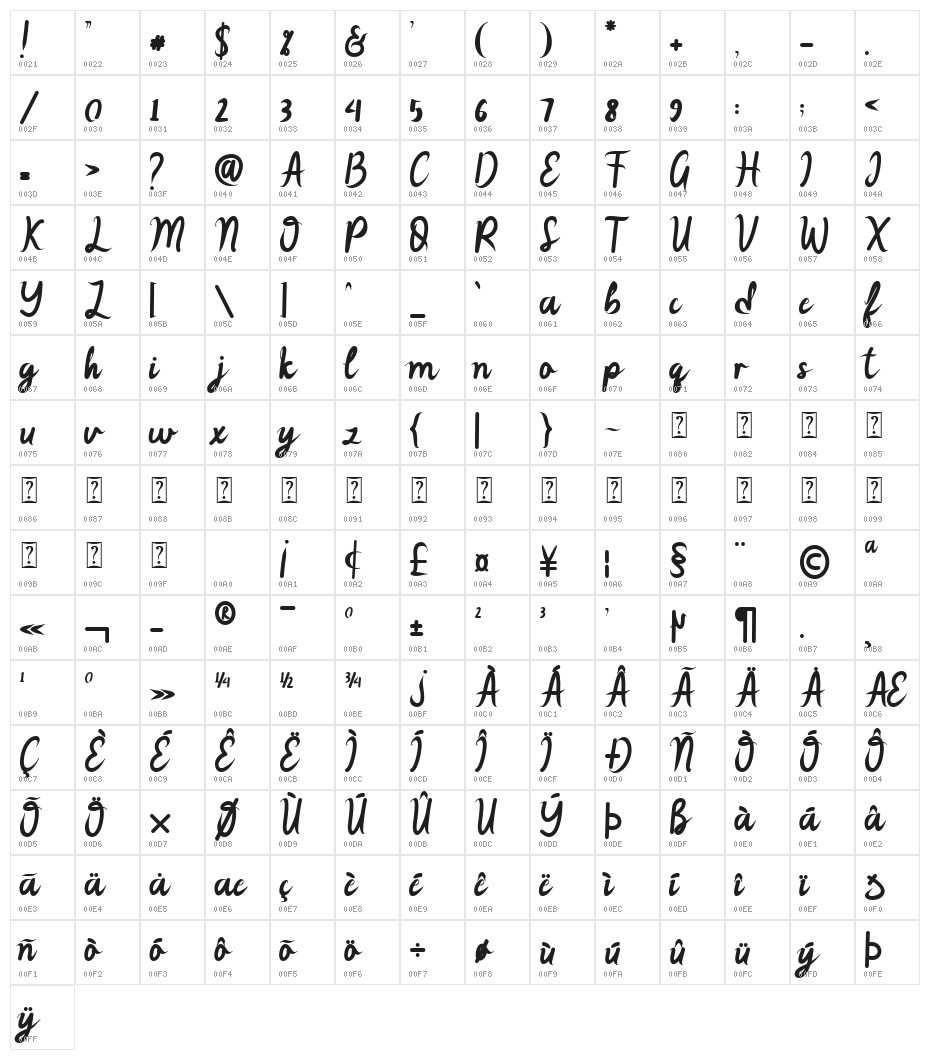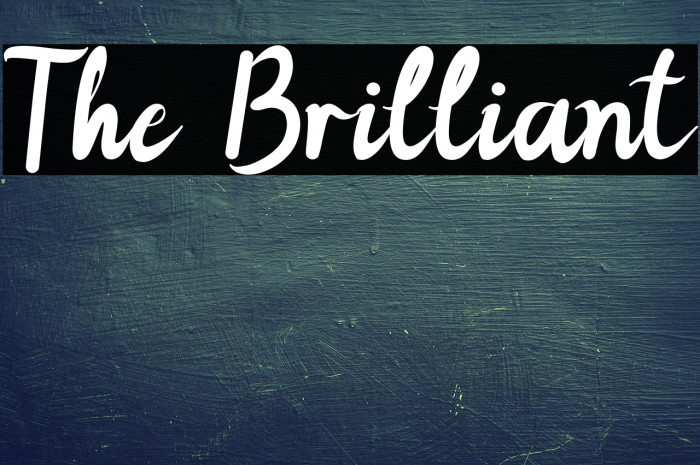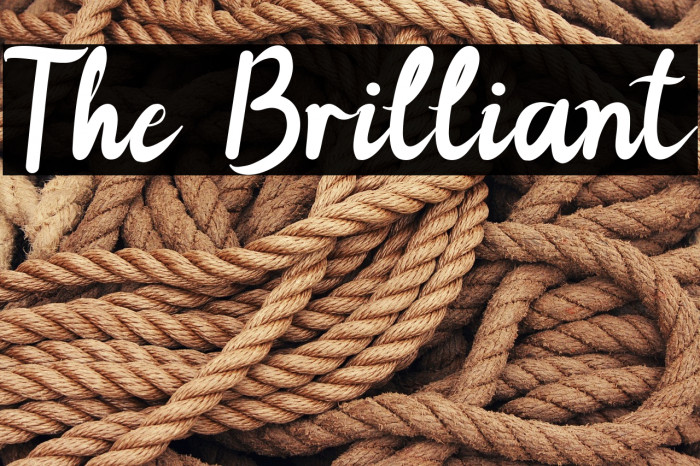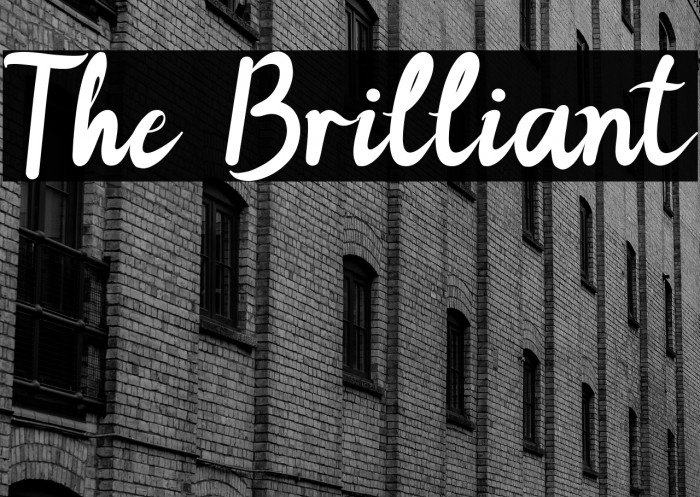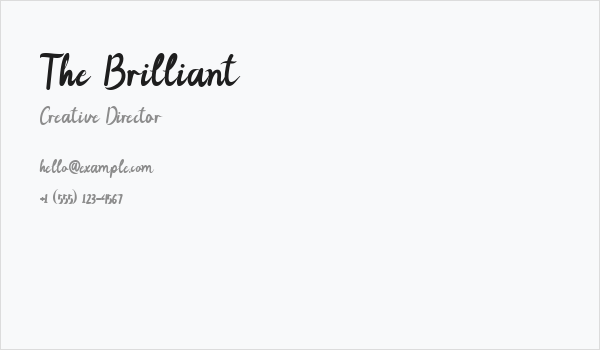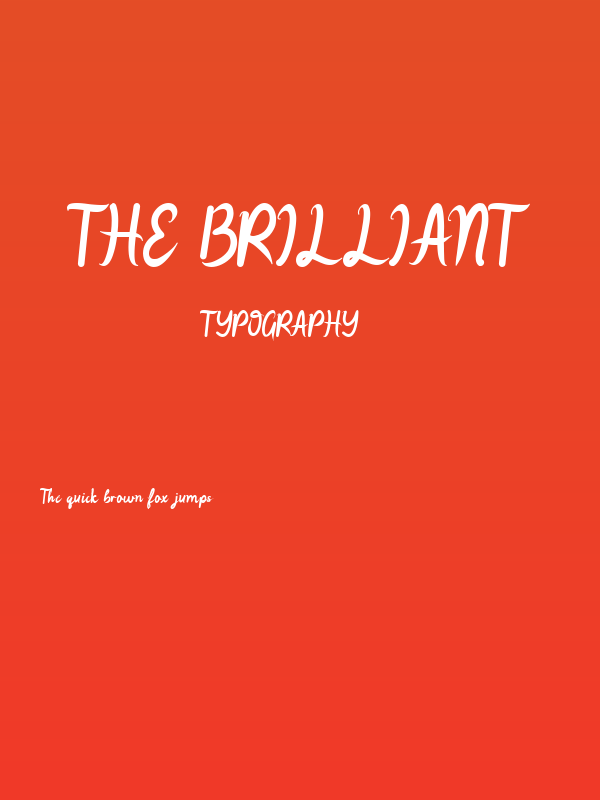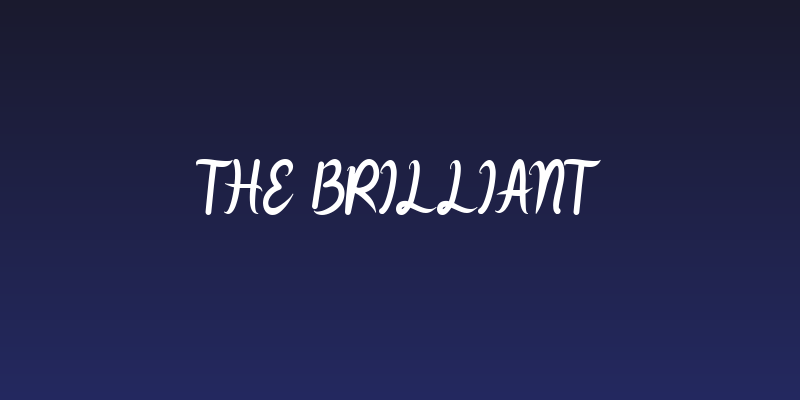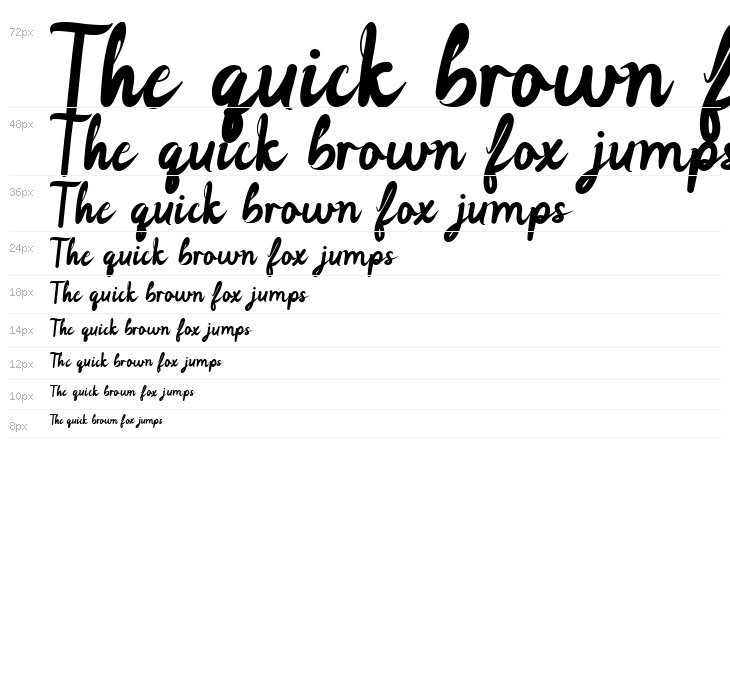
The Brilliant Font
The Brilliant Description
This font exhibits a lively and dynamic script style with a handwritten appearance. The characters are fluid and connected, giving a sense of movement and elegance. The uppercase letters are bold and slightly slanted, while the lowercase letters maintain a consistent flow with occasional loops and flourishes. The numerals are distinct and maintain the same energetic style, making them easily readable. Special characters are creatively designed to match the overall aesthetic, adding a playful touch. The font's bold strokes and smooth curves make it suitable for projects that require a personal and artistic touch.
| Proposed Projects | Ideal for wedding invitations, greeting cards, branding, and logo design where a personal and artistic touch is desired. |